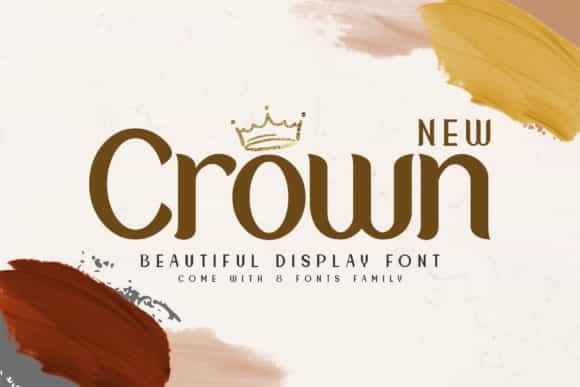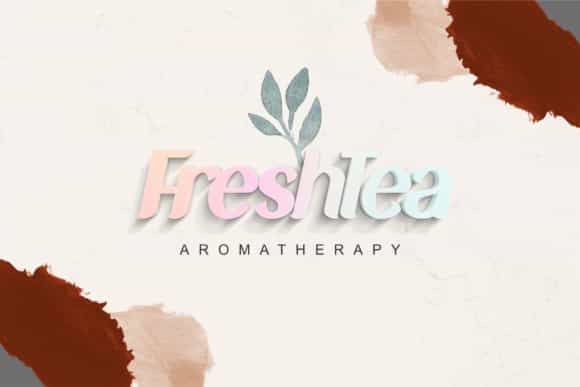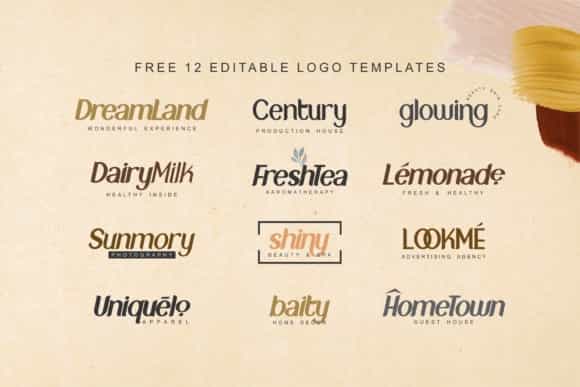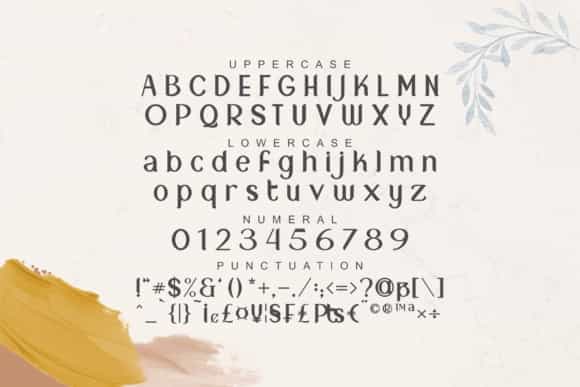
New Crown Sans Display Font
New Crown is an elegant sans serif display font with distinct traditional influences and a more contemporary look. In addition to its balanced Latin details, the font also has several unique contrasts. In New Crown the effect is subtle elegance partnered with maximum versatility—perfect for any occasion or context.